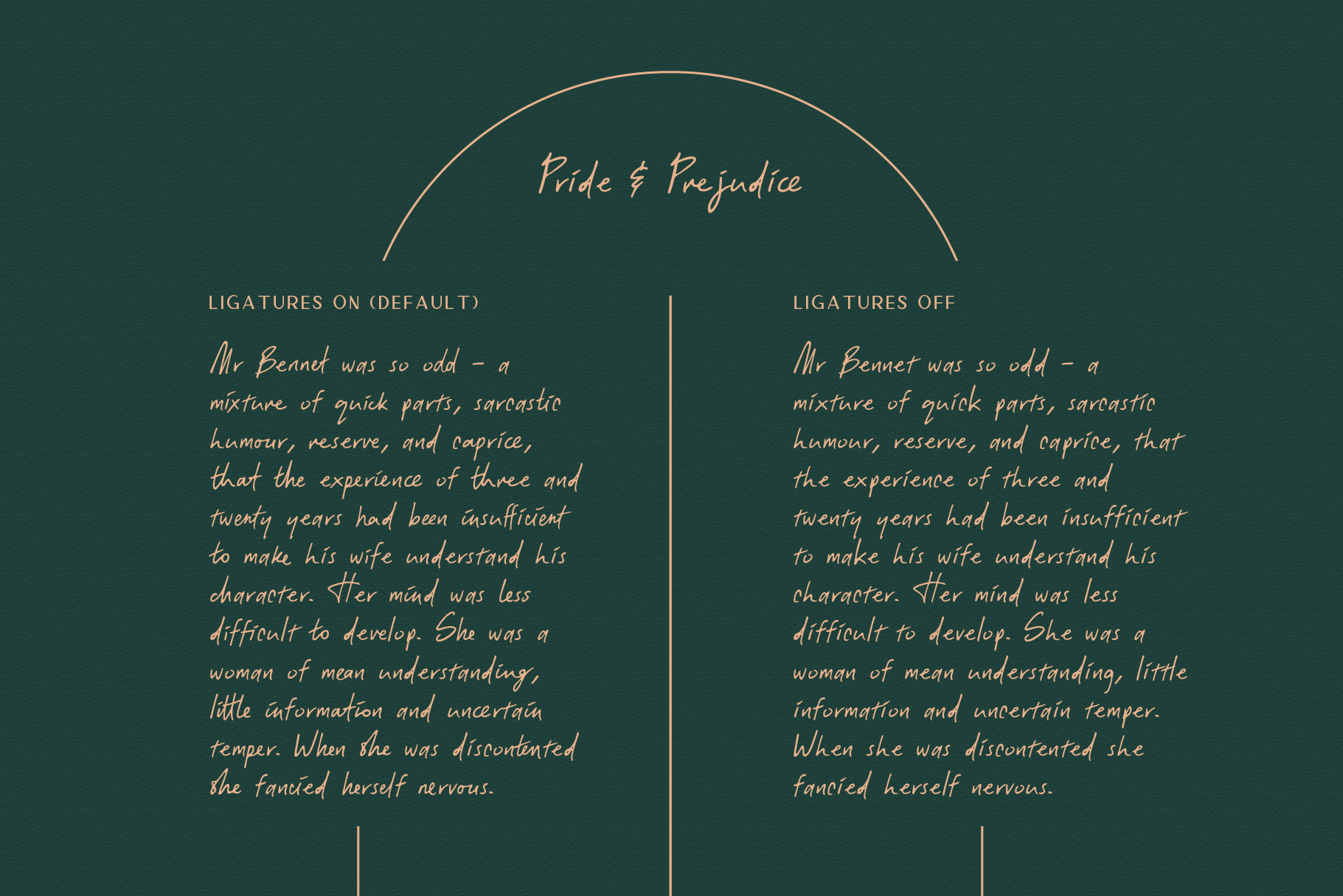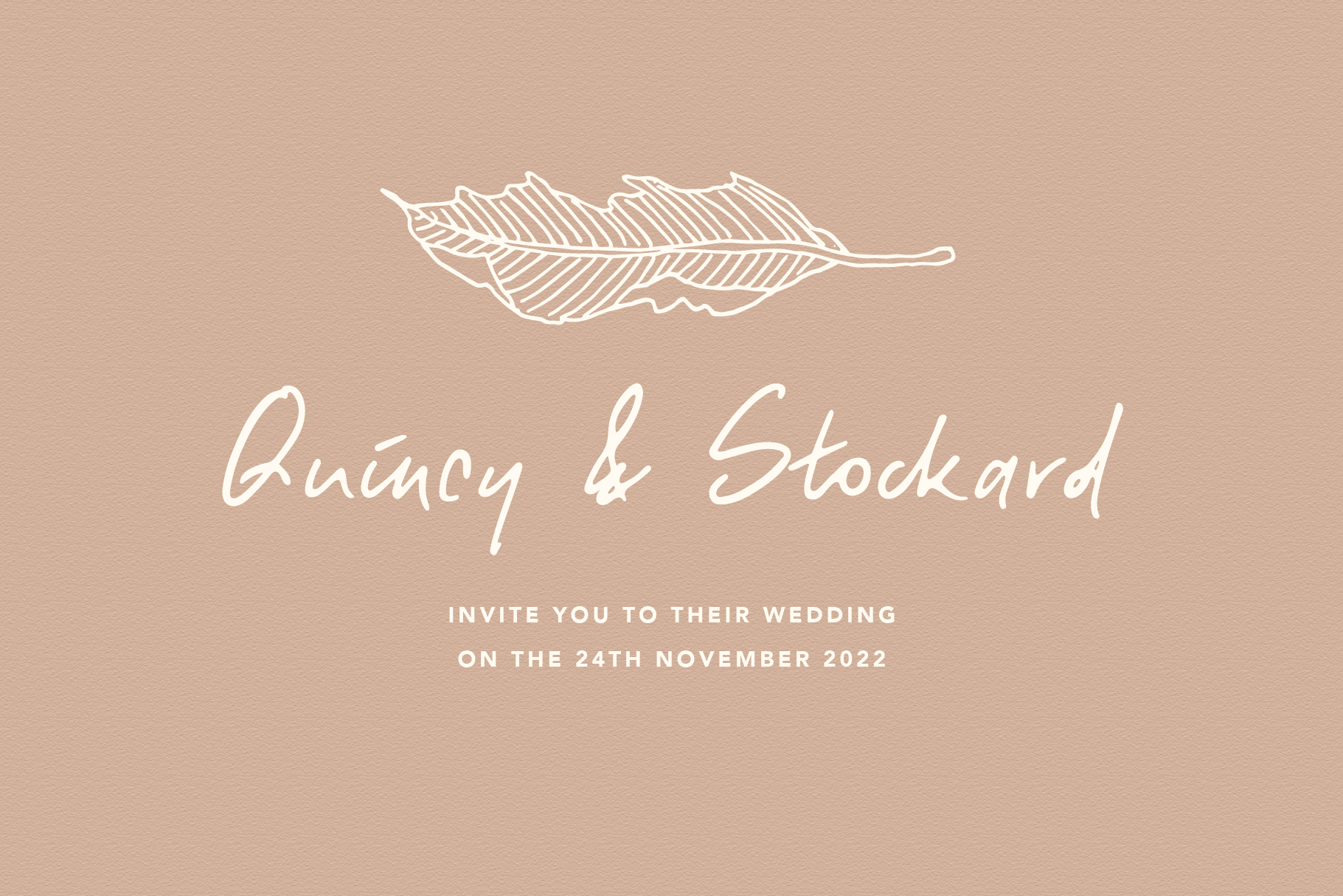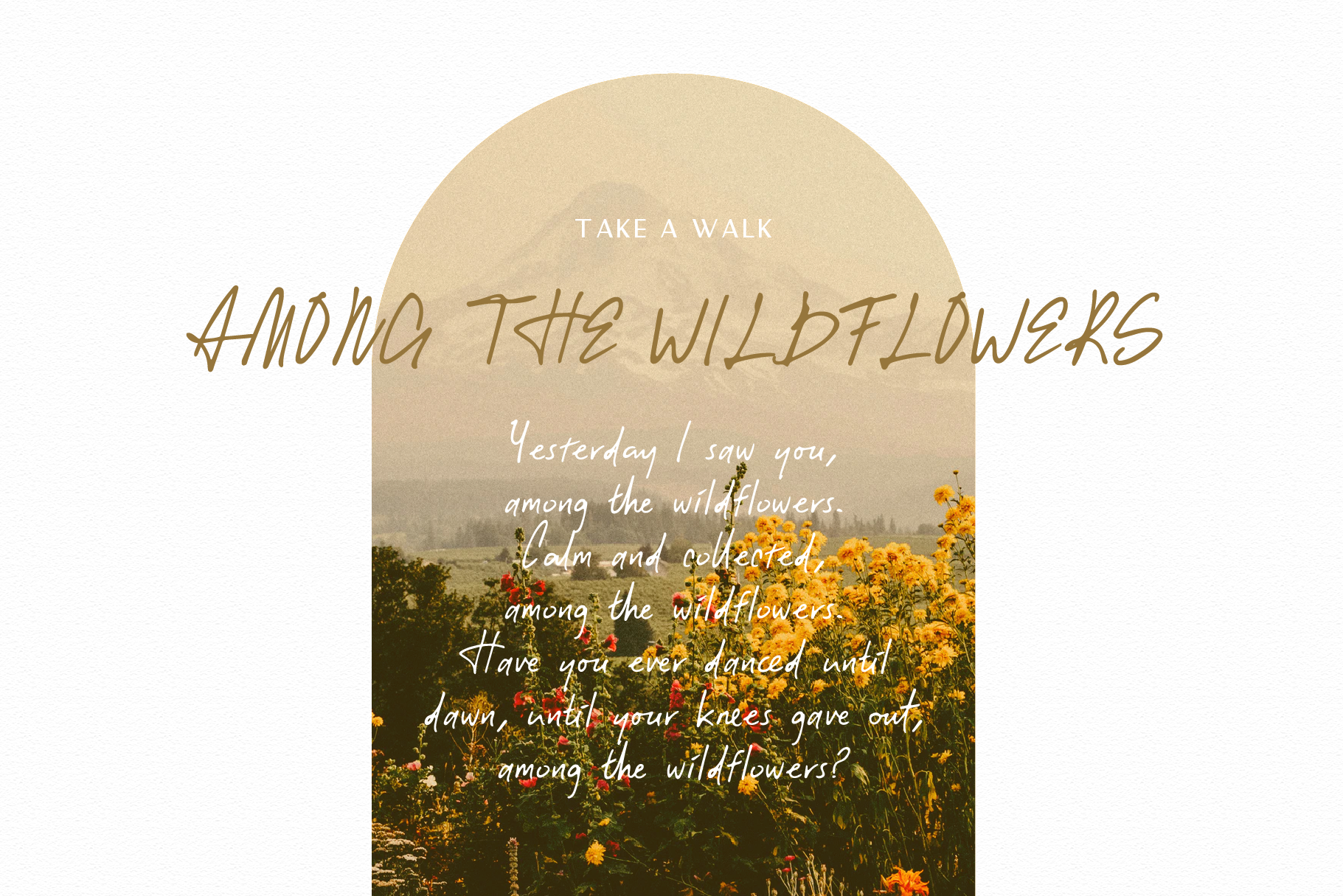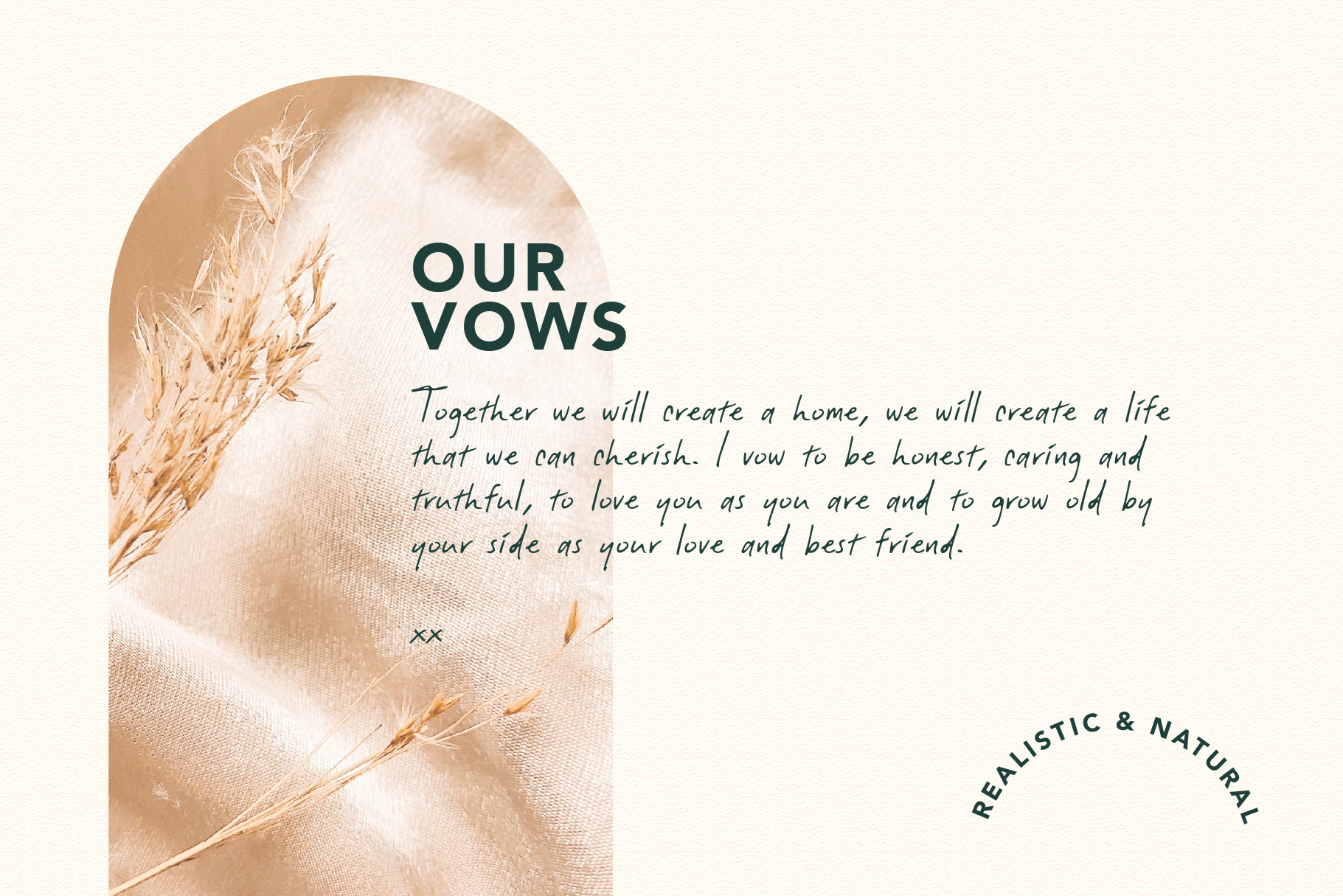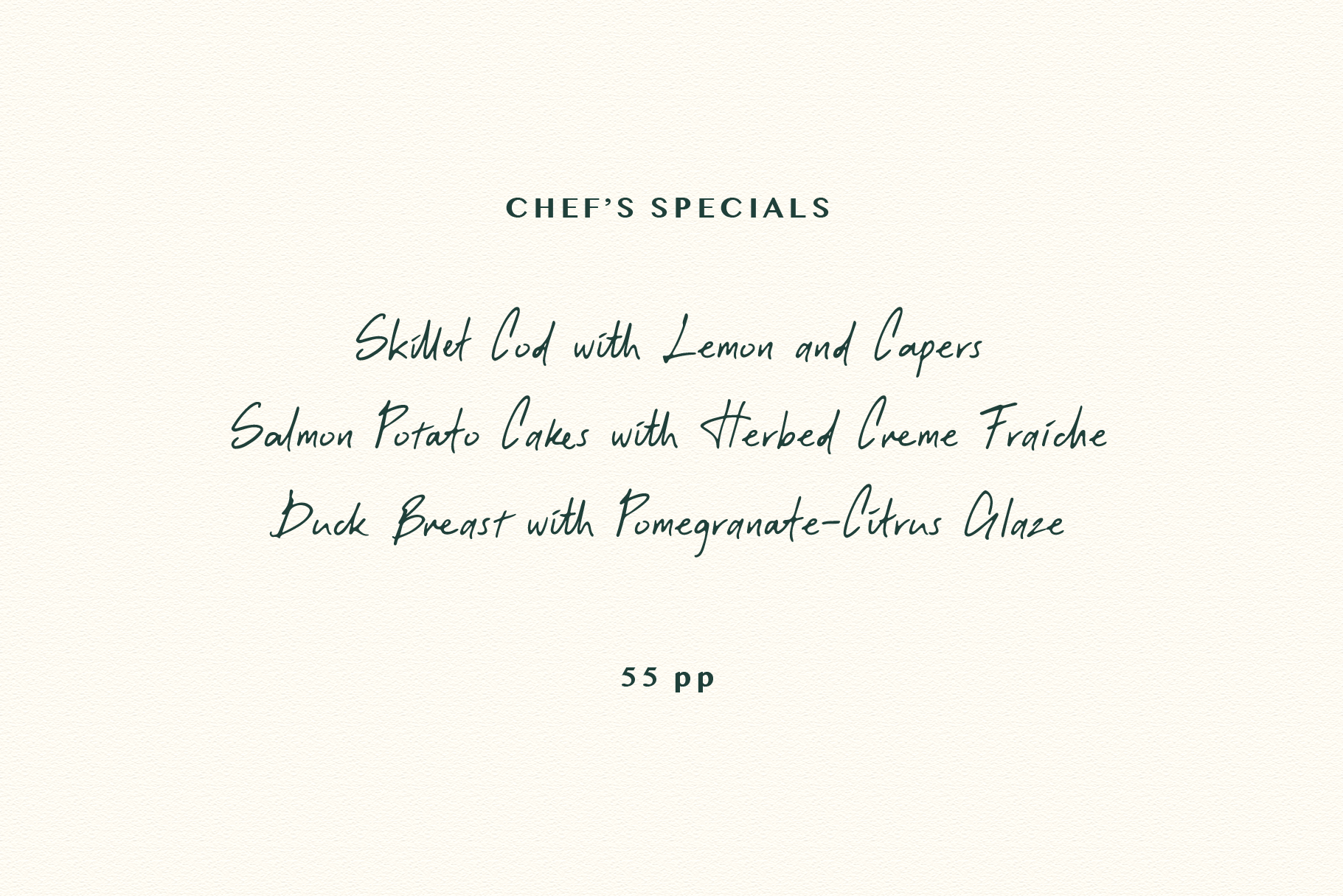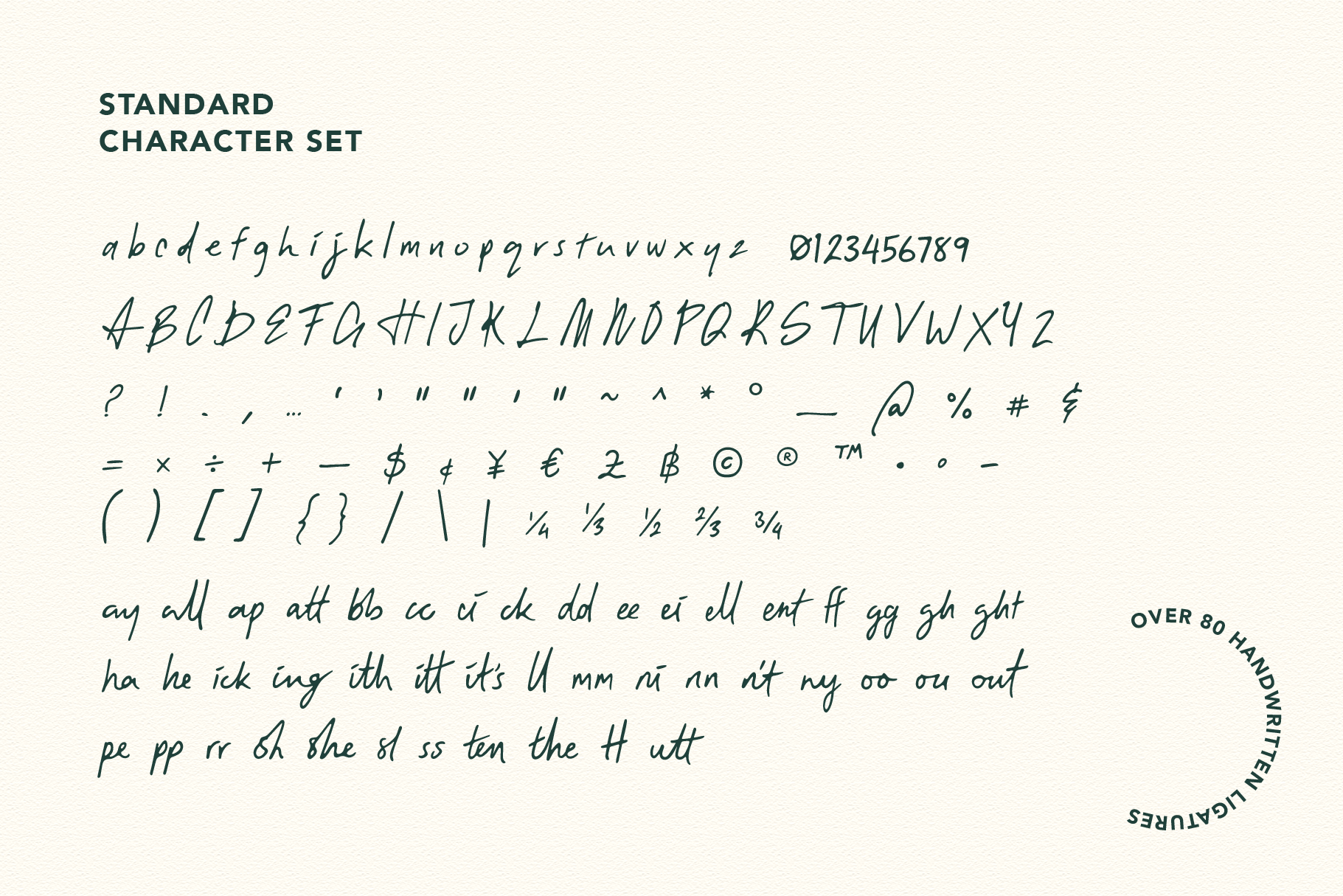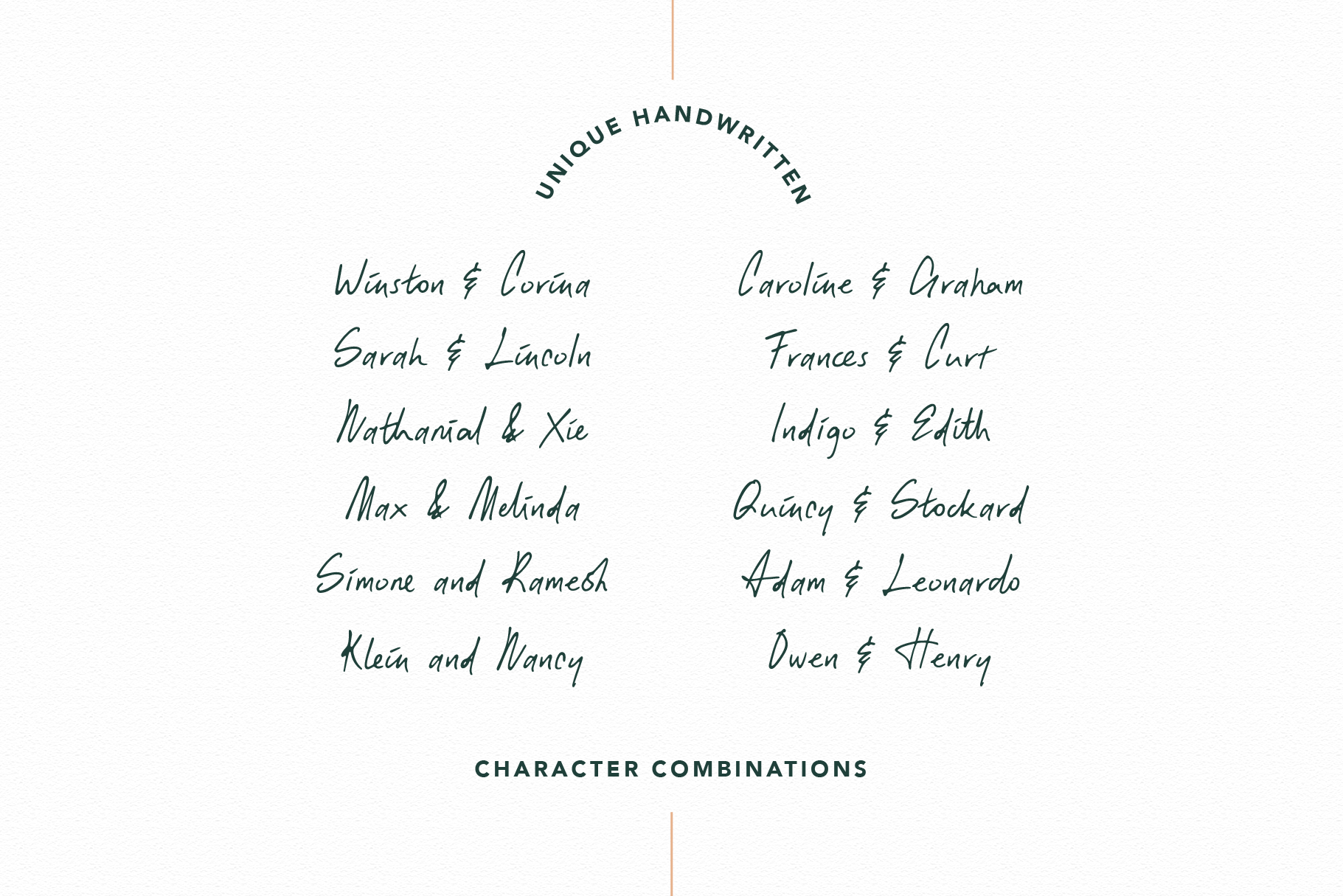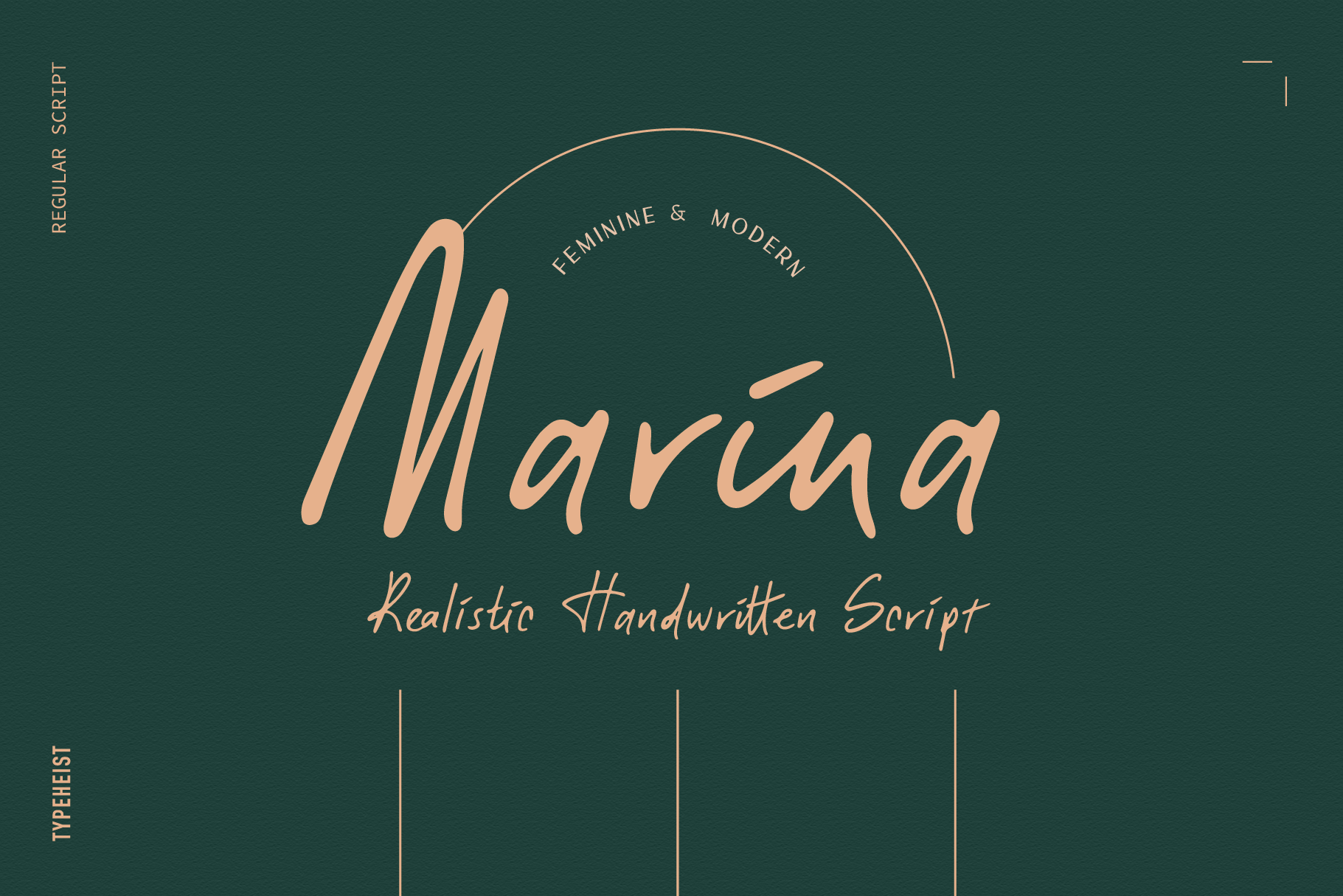
Marina
Marina is a feminine, yet modern, handwritten font - perfect for adding a warm touch to your designs. This dainty, cursive handwriting is ideal for designs or projects that need a classy, gentle vibe.
Over 80 ligatures will transform your writing from standard text into a beautiful, handwritten script.
Marina’s realistic and flowing style looks like real cursive handwriting, because it is… Written originally with a fineliner pen, you can feel the personal touch.
Marina is perfect for wedding and engagement invites, restaurants, birthdays, floristries, patisseries or love notes and looks great in both headings and body copy.